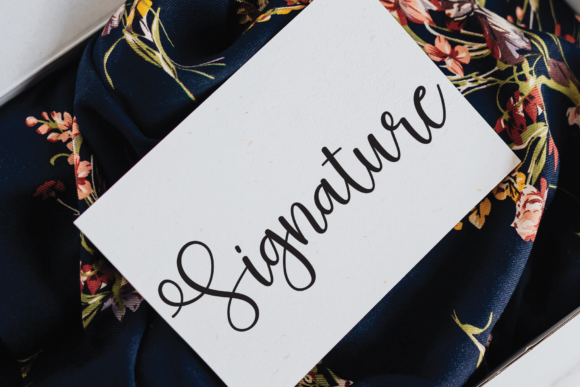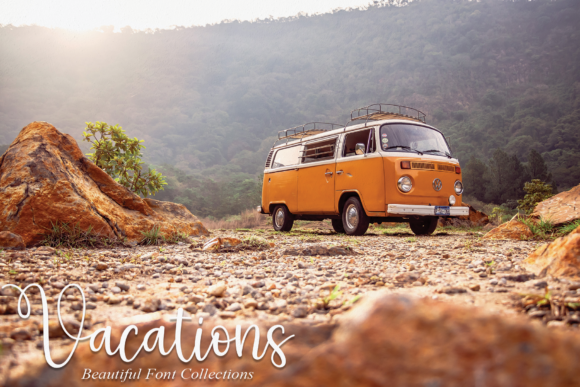
Honeymoon Font
db-ku.com - Script & Handwritten -- Honeymoon is a beautiful and chic script font. This gentle font will look gorgeous on a variety of design ideas. It will add a joyful and romantic touch to each of your projects!